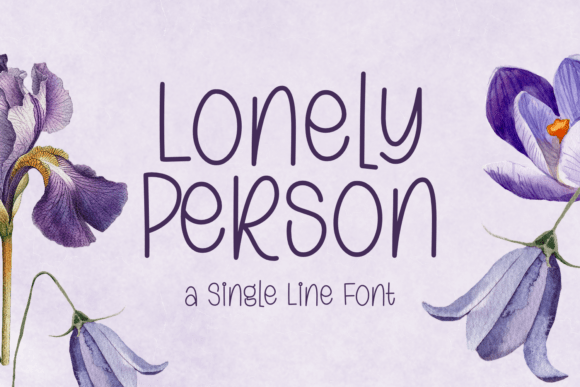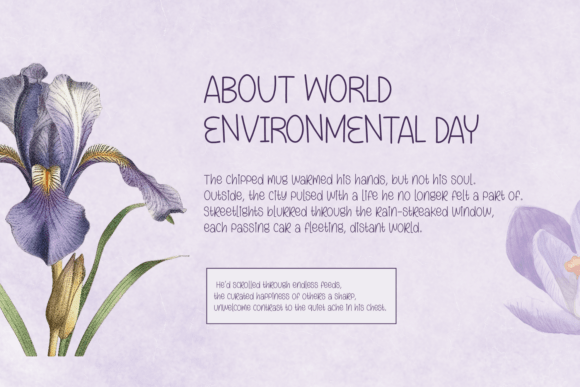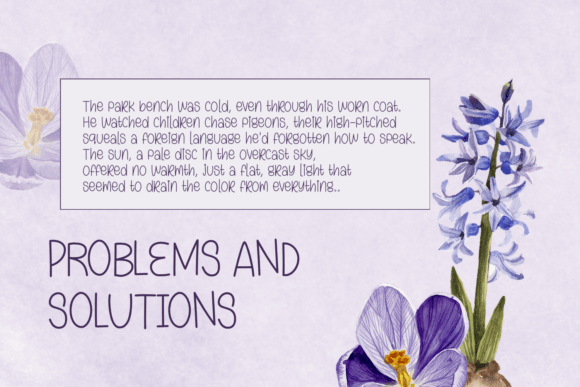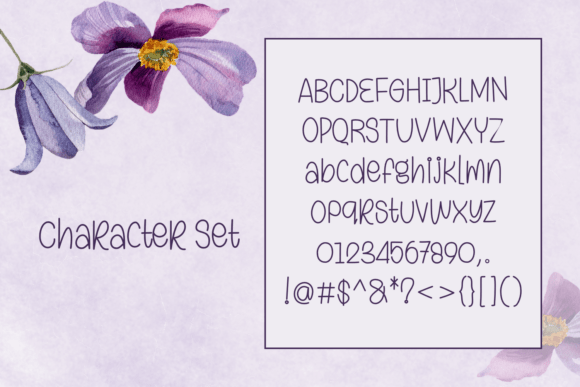
Lonely Person Font: A Playful & Cute Display Font
About the Lonely Person Font
The Lonely Person Font is here to transform your projects with its distinctive character and style. Lonely Person is a font that captures a unique blend of simplicity and playful creativity. This font is perfect for projects that require a touch of lightheartedness without sacrificing a modern, streamlined look. It’s ideal for conveying a sense of quirky individuality and creative expression, making it a delightful choice for invitations, and designs that seek to evoke a sense of friendly, imaginative charm.
Lonely Person excels in headlines, short-form text, and branding applications where a touch of quirky charm is desired. Its playful nature makes it suitable for packaging design, especially for products targeting a younger demographic or those with a whimsical brand identity. However, its unique letterforms aren’t ideal for body text or extended reading. Avoid using it in UI or situations requiring high readability over long passages.
Pairing Lonely Person with a clean sans-serif like Open Sans or a geometric sans-serif like Futura creates a balanced contrast. For a more playful approach, consider pairing it with a rounded script font. These pairings help ground the font’s unique character while maintaining visual interest and readability.
The overall personality of Lonely Person is friendly and approachable yet subtly bold. It’s best suited for brands and projects that wish to convey a sense of lighthearted optimism and individual expression.
Lonely Person Font Usage Examples
Lonely Person Font Example